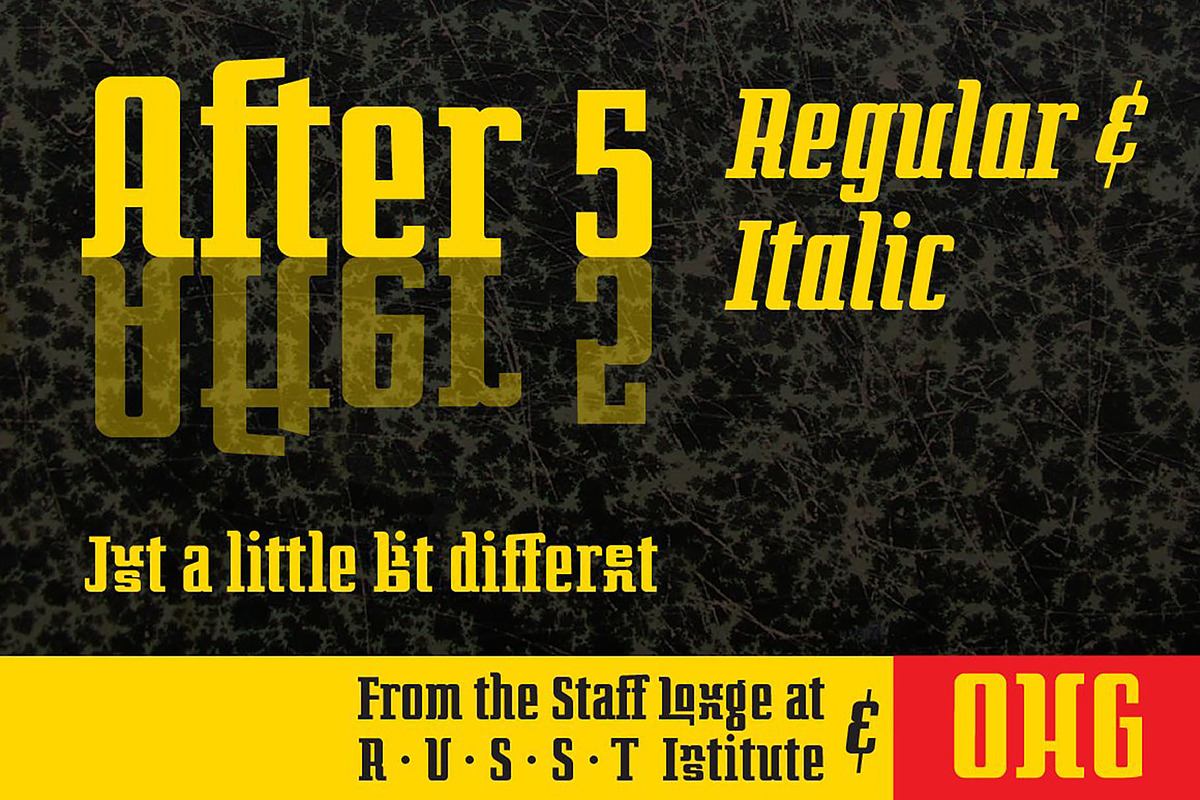
After5 Fonts Free Download
After5 Fonts Free Download is a stylish and contemporary font designed to bring elegance and sophistication to your projects. Featuring smooth, clean lines and a modern aesthetic, this font is perfect for logos, branding, invitations, headlines, social media graphics, and any project that needs a polished, high-end look.
Its versatile design makes it suitable for both formal and casual applications, adding a touch of professionalism without sacrificing style. Whether you're working on a corporate project, a creative campaign, or an elegant event invitation, After5 Fonts offers the perfect balance of modern appeal and readability.